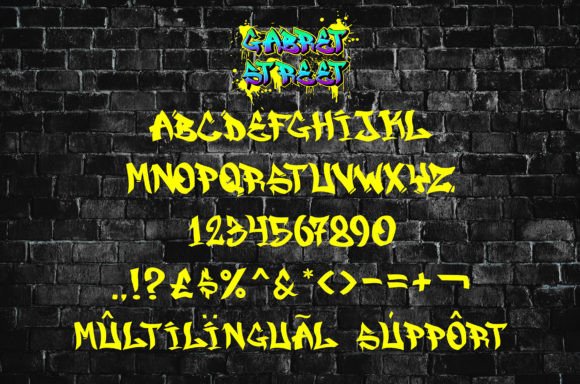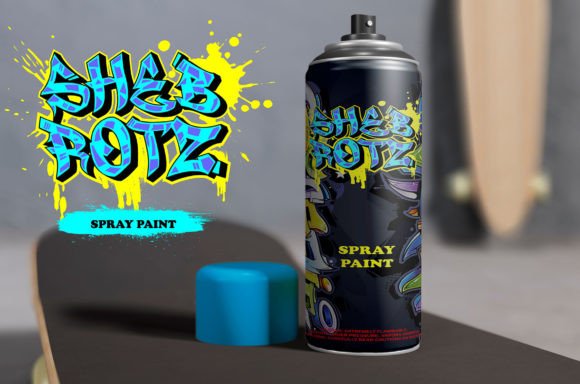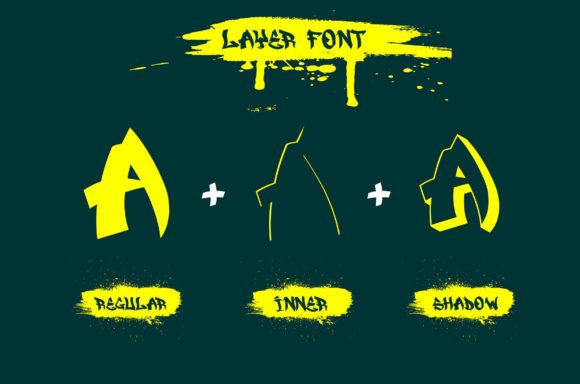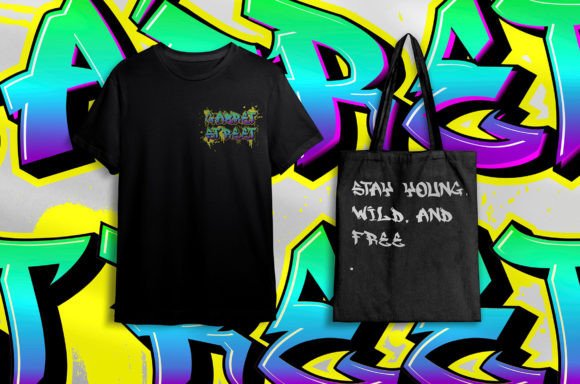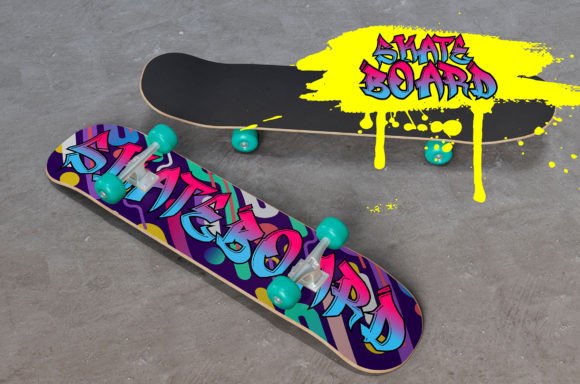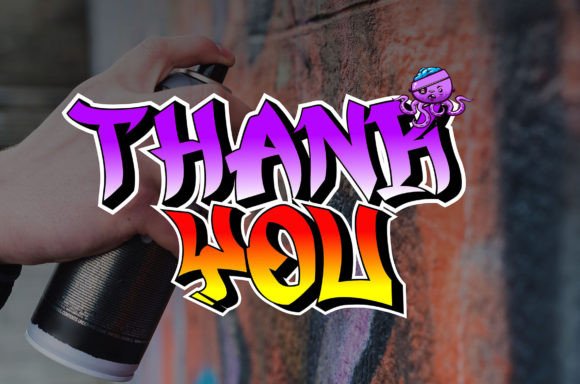
Introducing Gabret Street Font: The Ultimate Urban Graffiti Style
Are you a designer or crafter looking for a font that can add an edgy touch to your projects? Look no further than Gabret Street Font, an urban graffiti style characterized by sharp edges and a bold look. This font is perfect for music posters, apparel designs, shirts, and streetwear, and is ideal for those who want to create a strong and powerful statement.
What is Gabret Street Font?
Gabret Street Font is a unique and stylish font that is inspired by the urban graffiti scene. It features sharp edges and a bold look that is sure to grab attention. The font is designed to be versatile and can be used for a variety of projects, from music posters to apparel designs. Whether you’re looking to create a bold statement or simply add a touch of attitude to your designs, Gabret Street Font is the perfect choice.
Characteristics of Gabret Street Font
Gabret Street Font has several characteristics that make it stand out from other fonts. Some of its key features include:
- Sharp Edges: The font features sharp edges that give it a bold and edgy look.
- Urban Graffiti Style: The font is inspired by the urban graffiti scene, making it perfect for those who want to add a touch of street style to their designs.
- Bold Look: The font has a bold look that is sure to grab attention.
- Versatile: The font is versatile and can be used for a variety of projects, from music posters to apparel designs.
Uses for Gabret Street Font
Gabret Street Font is a versatile font that can be used for a variety of projects. Some of the most popular uses for the font include:
- Music Posters: The font is perfect for music posters, especially those for death metal or hard rock bands.
- Apparel Designs: The font is great for apparel designs, such as t-shirts, hoodies, and hats.
- Streetwear: The font is ideal for streetwear designs, such as sneakers, jackets, and backpacks.
- Urban Graffiti Themes: The font is perfect for urban graffiti themes, such as murals, posters, and flyers.
Why Choose Gabret Street Font?
There are several reasons why you should choose Gabret Street Font for your next project. Some of the benefits of using the font include:
- Unique Style: The font has a unique style that is sure to grab attention.
- Edgy Look: The font has an edgy look that is perfect for those who want to add a touch of attitude to their designs.
- Versatile: The font is versatile and can be used for a variety of projects.
- Easy to Read: The font is easy to read, even at small sizes.
Tips for Using Gabret Street Font
Here are some tips for using Gabret Street Font:
- Use it for Headlines: The font is perfect for headlines, such as titles and headings.
- Pair it with Other Fonts: The font can be paired with other fonts to create a unique and stylish look.
- Use it for Large Text: The font is best used for large text, such as posters and billboards.
- Experiment with Colors: The font looks great in a variety of colors, so don’t be afraid to experiment.
| Font Name | Gabret Street Font |
| Author | Cikareotype |
Gabret Street Font is a unique and stylish font that is perfect for designers and crafters who want to add an edgy touch to their projects. With its sharp edges and bold look, the font is ideal for music posters, apparel designs, shirts, and streetwear. Whether you’re looking to create a strong and powerful statement or simply add a touch of attitude to your designs, Gabret Street Font is the perfect choice.